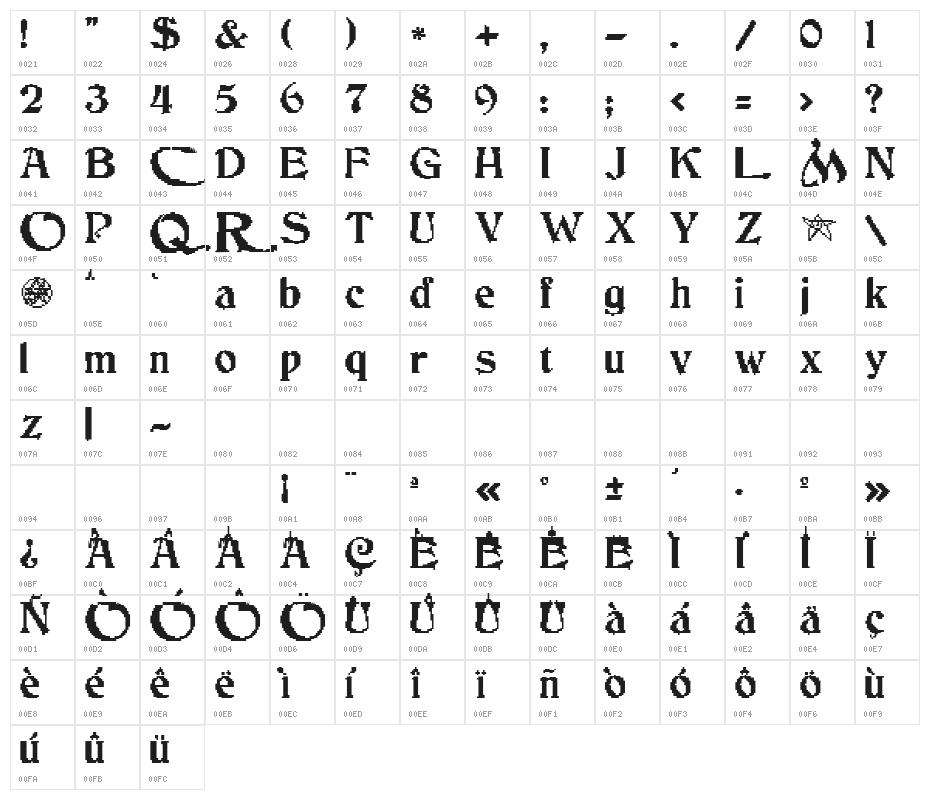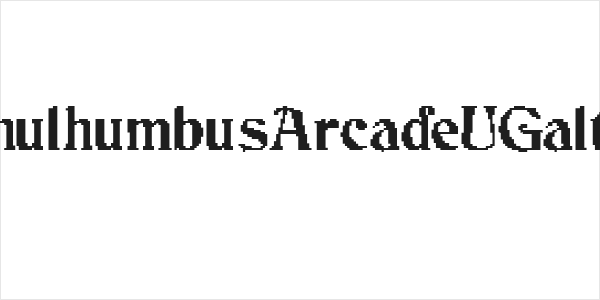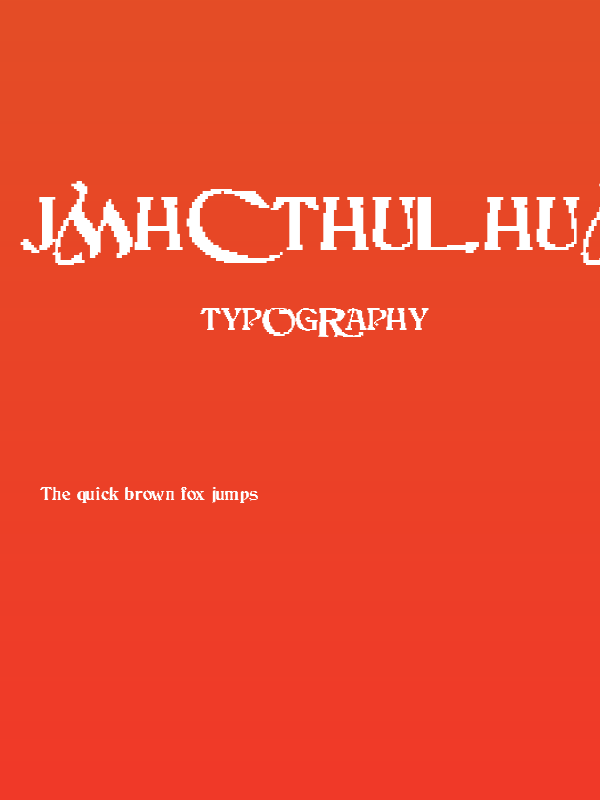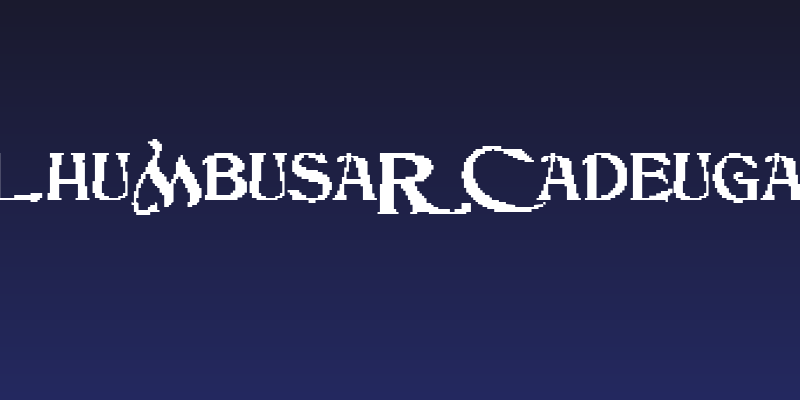
JMHCthulhumbusArcadeUGalt2-Regu Font
JMHCthulhumbusArcadeUGalt2-Regu Description
This font features a bold and dramatic style with a distinct gothic influence. The uppercase letters have sharp, angular serifs and a slightly condensed form, giving them a strong presence. The lowercase letters maintain a consistent weight, with some characters exhibiting unique flourishes, adding to the font's decorative appeal. The numerals are bold and clear, matching the overall weight of the alphabet. Special characters are designed to complement the letterforms, maintaining the same boldness and style. This font is ideal for projects that require a touch of vintage or gothic flair.
| Overall Style | Gothic, Vintage |
| Proposed Projects | Perfect for vintage posters, book covers, video game titles, and branding that requires a dramatic touch. |